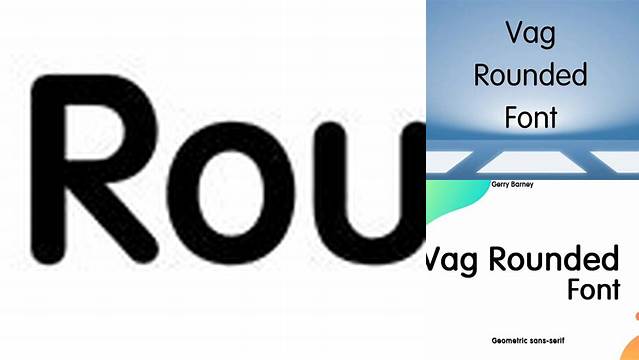
VAG Rounded Free Font: Your Ultimate Guide
Hey guys! Ever stumbled upon a font that just feels…right? That's VAG Rounded for many of us. It’s clean, friendly, and super versatile. But what's the deal with this font? Is it really free? How can you use it? Let's dive in and explore everything you need to know about VAG Rounded Free Font.
1. What is VAG Rounded Font?
So, what exactly is VAG Rounded? It's a geometric sans-serif typeface known for its rounded terminals, which give it a soft and approachable feel. Originally designed for Volkswagen (hence the 'VAG'!), this font has become incredibly popular in various design projects. Its clarity and legibility make it ideal for branding, signage, and even digital interfaces. The rounded edges add a touch of friendliness, making it a go-to choice for projects that need to convey warmth and accessibility. Think about it – when you see this font, doesn’t it just feel…nice? That’s the magic of VAG Rounded! You've probably seen it everywhere, from corporate logos to website headers, and that's because it strikes a perfect balance between professionalism and approachability. This makes VAG Rounded Free Font a top pick for designers aiming to create a welcoming and modern aesthetic. The rounded terminals soften the harshness often associated with sans-serif fonts, making it a versatile option for a wide range of applications. Whether you're designing a logo, creating marketing materials, or working on a user interface, VAG Rounded offers a clean and contemporary look that's hard to beat. Its geometric structure ensures readability, while the rounded edges add a touch of personality. This combination of functionality and aesthetic appeal is what sets VAG Rounded apart and makes it a staple in many designers' toolkits. Understanding the origins and characteristics of VAG Rounded helps you appreciate its design and make informed decisions about how to use it in your projects. From its initial purpose as a corporate typeface to its current status as a widely used design element, VAG Rounded's journey is a testament to its timeless appeal and versatility. So, next time you see VAG Rounded in action, you'll know exactly what makes it so special.
2. The History of VAG Rounded
The history of VAG Rounded Free Font is pretty interesting, guys! It was initially created in 1979 by Sedley Place Design for Volkswagen AG's corporate identity. Can you imagine a font designed specifically for a car company becoming such a design staple? The goal was to create a typeface that reflected the brand's image: reliable, modern, and approachable. And boy, did they nail it! The font's clean lines and rounded edges perfectly embodied these qualities, making it a hit from the get-go. Over the years, VAG Rounded has transcended its original purpose and found its way into countless other applications. Its distinctive look has made it a favorite among designers looking for a font that's both professional and friendly. The story behind VAG Rounded highlights how a well-designed typeface can have a lasting impact. What started as a corporate branding tool has evolved into a widely recognized and appreciated design element. This journey underscores the importance of thoughtful design and how a font can become synonymous with certain values and aesthetics. From its early days in automotive branding to its current use in various industries, VAG Rounded’s history is a testament to its enduring appeal and adaptability. The font's legacy is a reminder that great design can stand the test of time and continue to inspire creativity for years to come. Understanding the historical context of VAG Rounded gives you a deeper appreciation for its significance in the design world and helps you use it effectively in your own projects.
3. Key Characteristics of VAG Rounded Font
Okay, let's break down what makes VAG Rounded Free Font so special. The key characteristics are what give it that unique look and feel. First off, those rounded terminals we keep mentioning? They're a big deal! They soften the overall appearance, making it less harsh than your typical sans-serif font. Then there's the geometric construction – the font is based on simple geometric shapes, which gives it a clean and modern aesthetic. This geometric structure also contributes to its excellent legibility, making it easy to read even in smaller sizes. The consistent stroke weight across characters is another important feature, ensuring a balanced and harmonious look. The proportions of the letters are carefully designed to create a sense of visual rhythm, making the text flow smoothly. All these elements come together to create a typeface that's both functional and aesthetically pleasing. The rounded terminals, geometric shapes, consistent stroke weight, and balanced proportions are all crucial in making VAG Rounded a versatile and beloved font. These characteristics allow it to work well in a variety of contexts, from headlines to body text, and across different mediums, from print to digital. The attention to detail in its design is what sets VAG Rounded apart and makes it a reliable choice for any project. When you understand these key features, you can better appreciate the thought and craftsmanship that went into creating this iconic typeface. This knowledge will also help you make informed decisions about when and how to use VAG Rounded effectively in your own design work. By recognizing its distinctive qualities, you can leverage its strengths to create visually compelling and impactful designs.